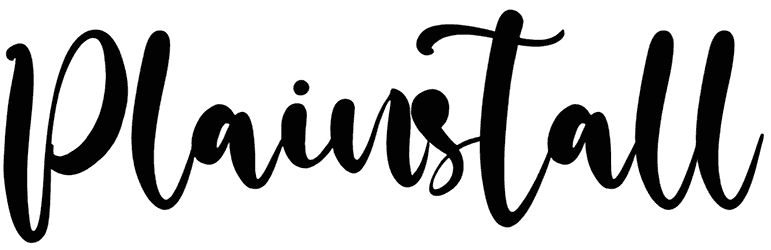
Plainstall Font
Take a look at Plainstall, a beautiful, romantic font that is drawn by brush in a bold, cursive shape and smooth texture. It’s unreadable, but it comes with a complete set of characters instead. This script font is perfect for shopping bags, book covers, greeting cards, apparel printing, and special events.